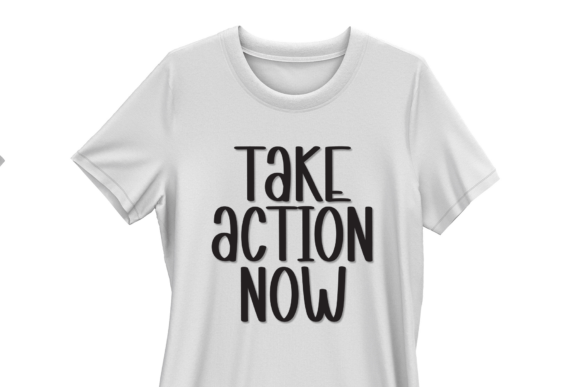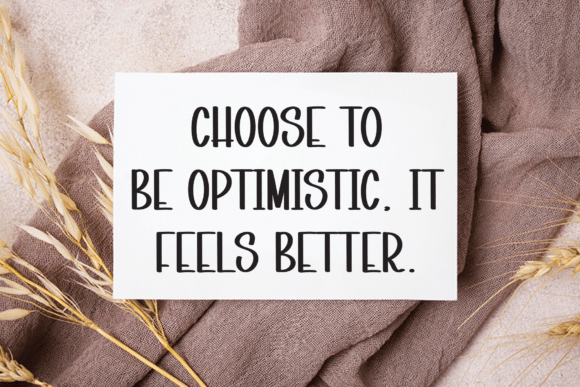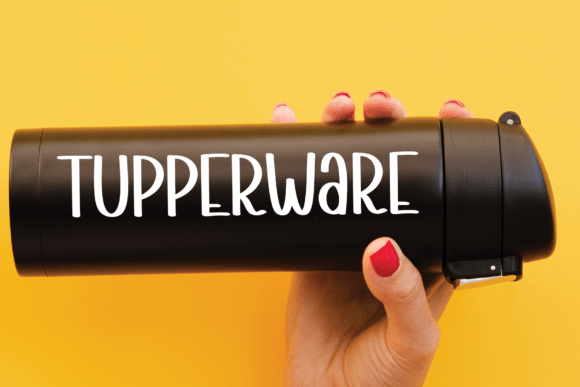
Introduction to Hello Daughter Font
Immerse your words into the delightful and agreeable universe of a handwritten display font named Sweet and Friendly.
Salvaging the charm of handwritten scripts, this enchanting font brings a delightful flavor to your text, either for wedding invitations or creatively crafted cards As the nicety of its curve infuses an air of fun, this font is a perfect choice for designs seeking a playful yet refined touch.
Key Features of Hello Daughter Font